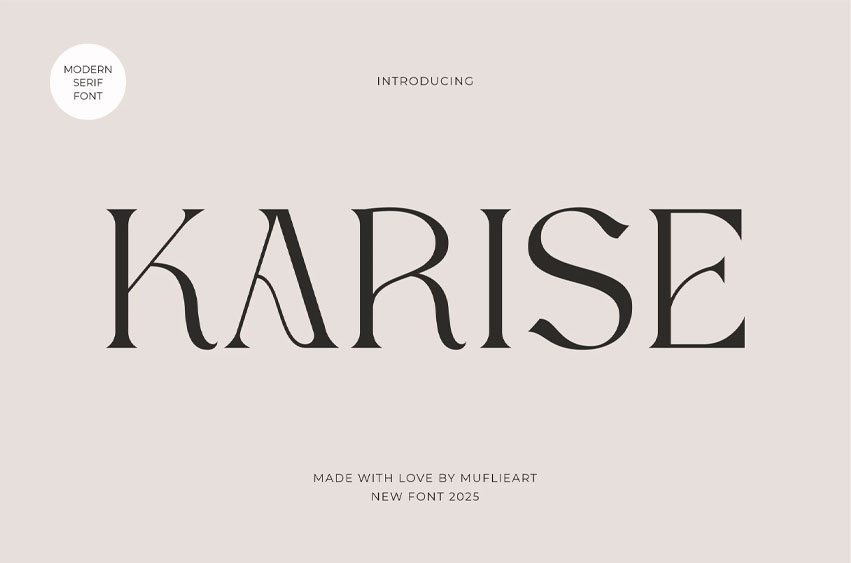
Karise Font
Karise Font the elegant, beautiful, and modern Serif. With its modern and minimalist look, Karise brings a luxurious, classy, ​​and clean style to your projects, such as websites, modern logos, brand identities, social media quotes, wedding stationery, magazines, and more!
Karise features unique and classy capital letters A to Z and also comes with unique alternates and ligatures, making Karise a beautiful font that can be customized for various projects and jobs you want.